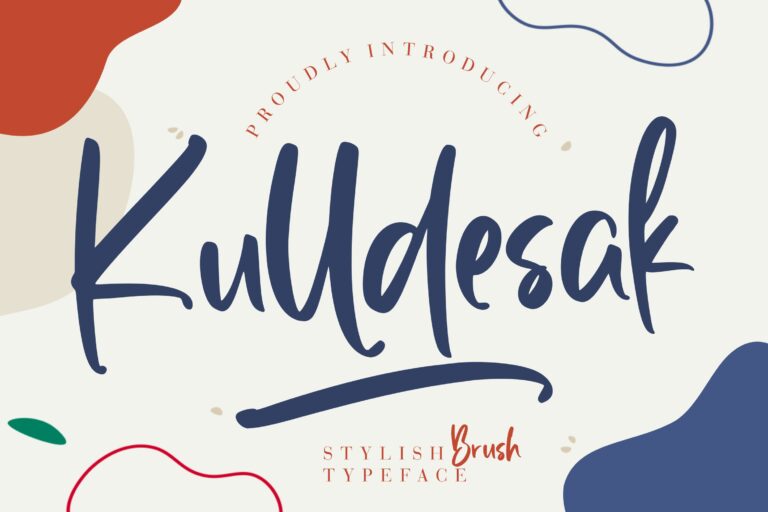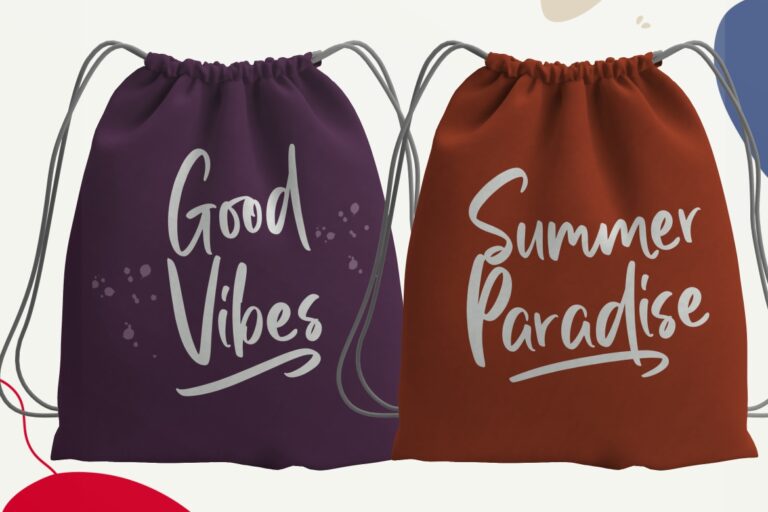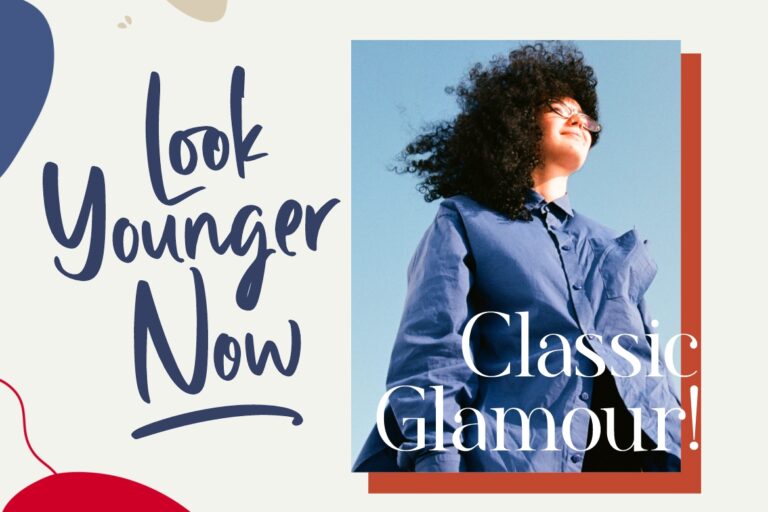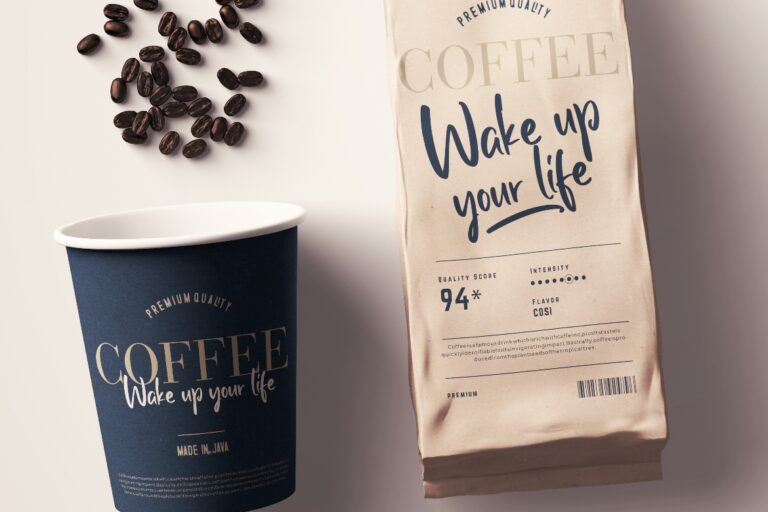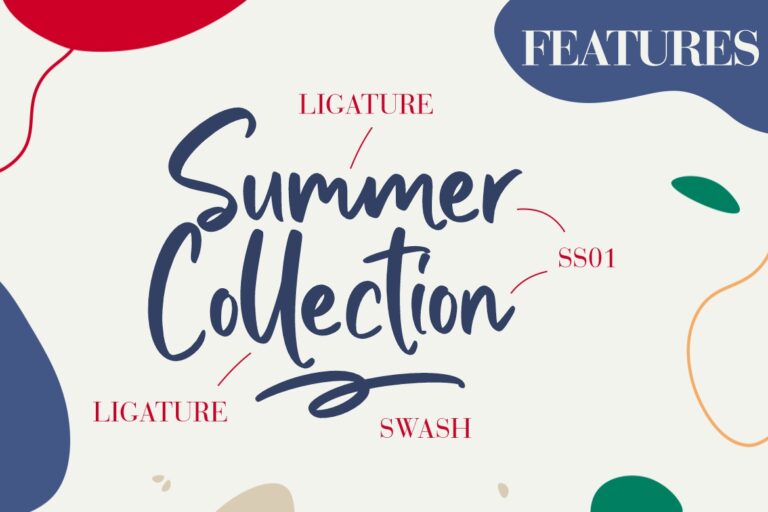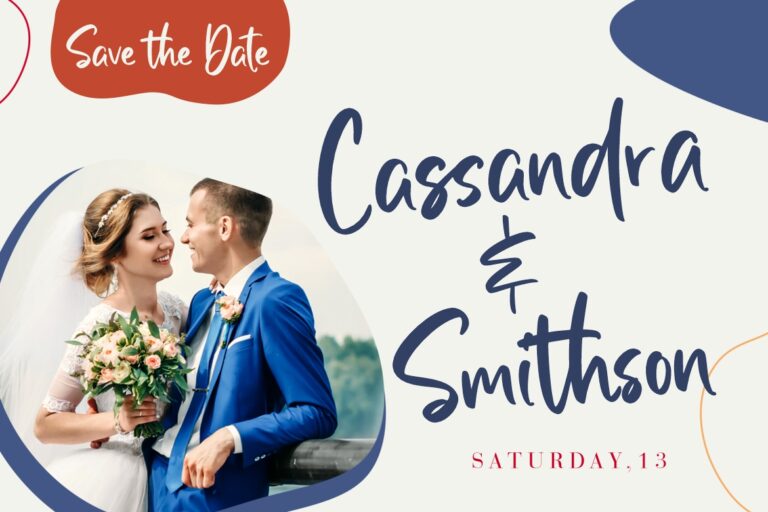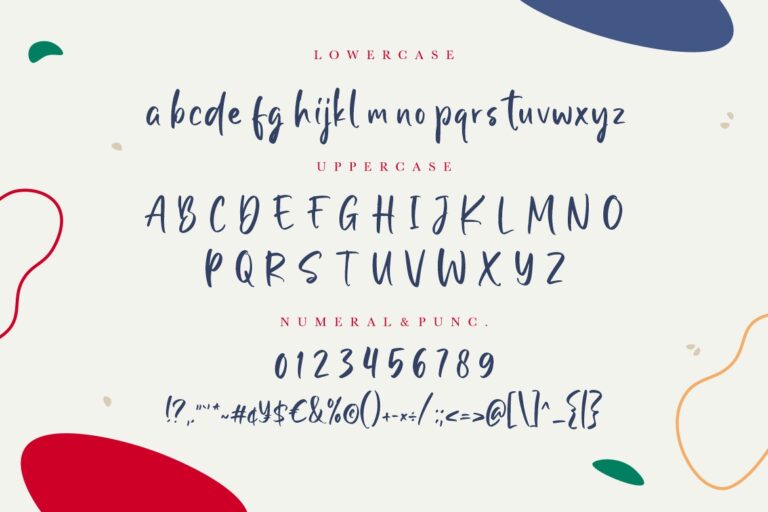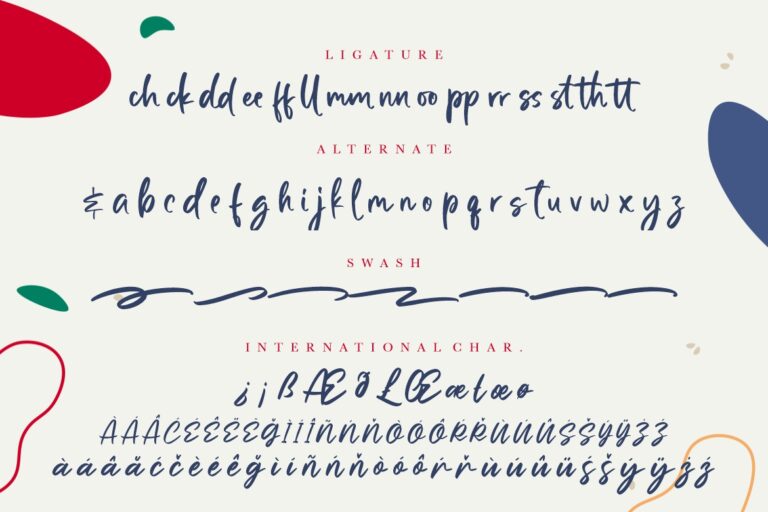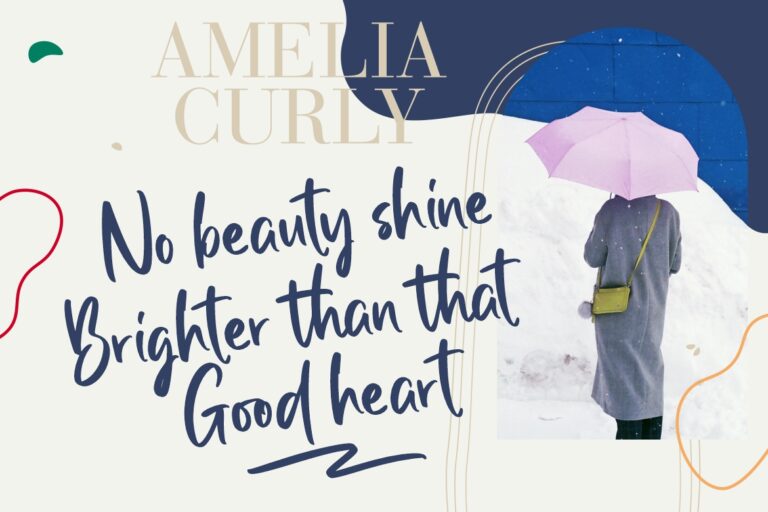
Kulldesak is stylish brush font that looks modern, elegant and natural perfect for your project.
Kulldesak is perfect for branding projects, logo, wedding designs, social media posts, advertisements, product packaging, product designs, label, photography, watermark, invitation, stationery and any projects that need handwriting taste.
• Ligature, Alternate & Swashes
Kulldesak Stylish Brush Font